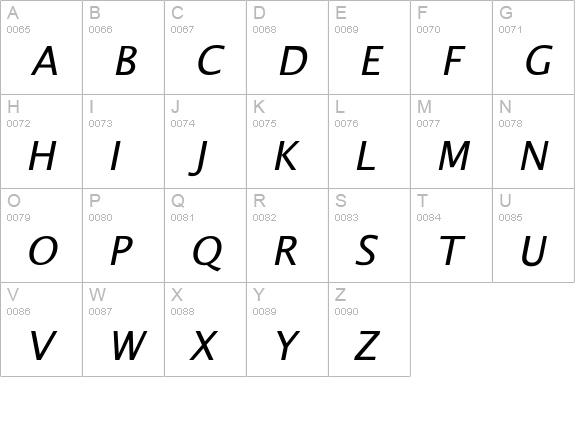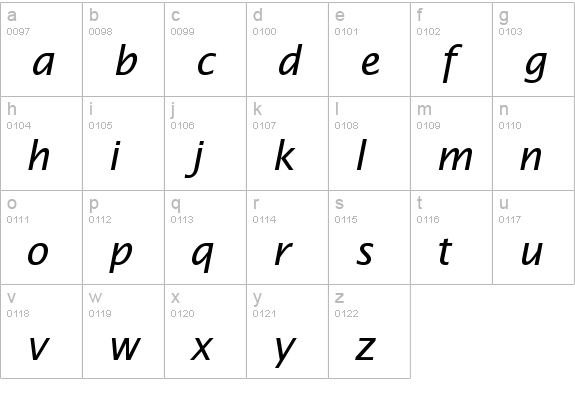
Lucida Sans Ita Font Details
Lucida Sans Italic is a modern and versatile font that exudes elegance and sophistication. With its slanted and stylish design, this font is perfect for adding a touch of flair to any project. Its clean lines and clear readability make it ideal for both print and digital applications. What sets Lucida Sans Italic apart is not only its aesthetic appeal but also the fact that it is available for free download at FontsMarket.com. This means that you can easily access this high-quality font without any cost, making it a valuable addition to your font library. Whether you are designing a website, creating marketing materials, or working on a personal project, Lucida Sans Italic is sure to elevate your design and leave a lasting impression. Download this font today and bring your creations to the next level with its timeless elegance and modern charm.